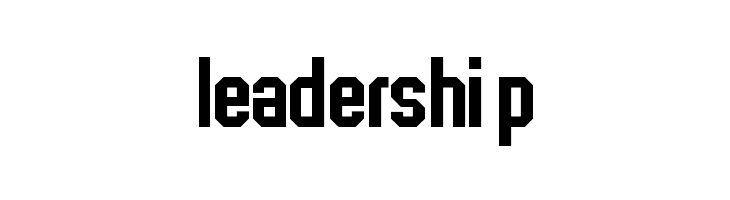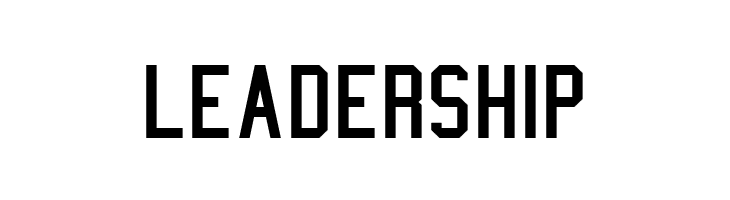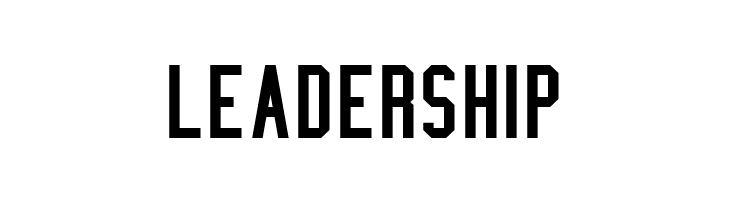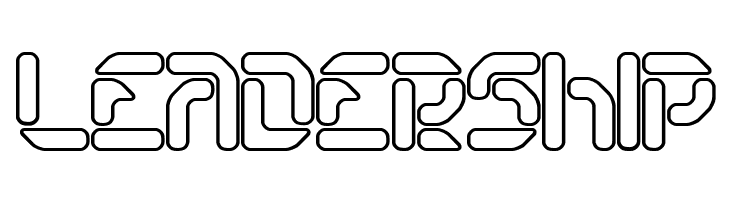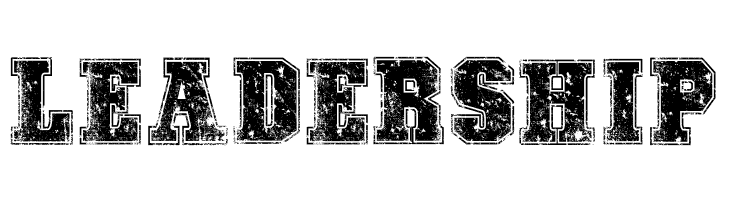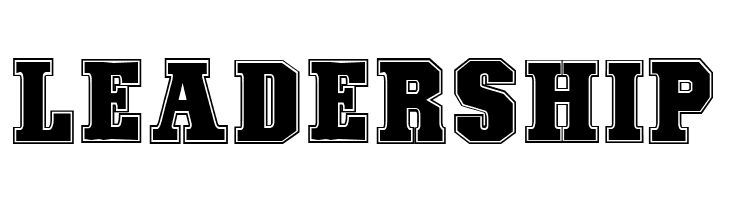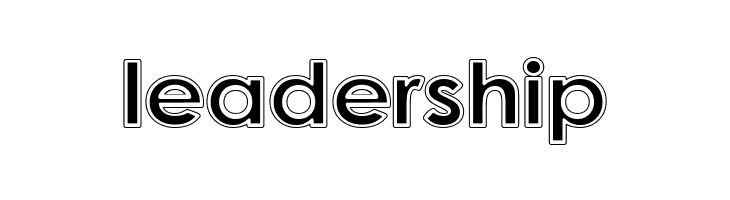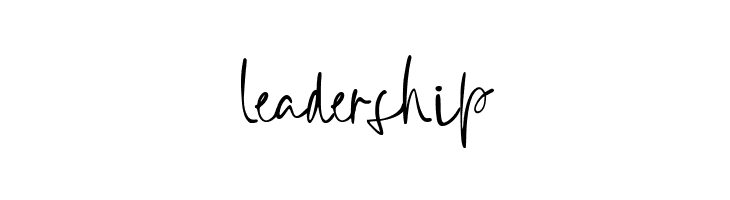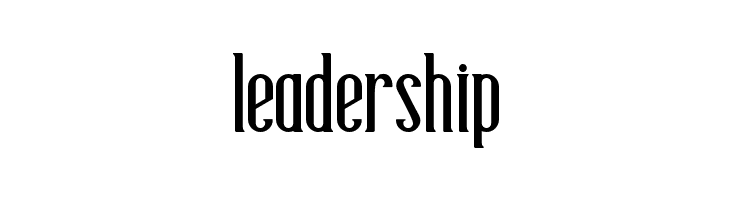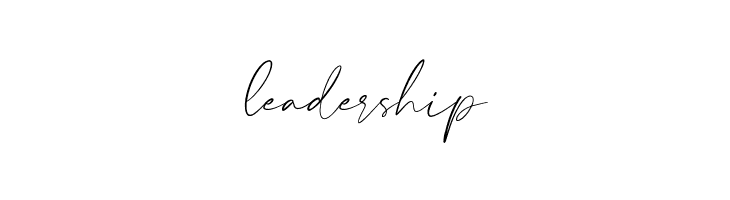
A graceful and elegant script font with flowing, cursive letterforms.
A bold, geometric font with a futuristic, modular design.
A bold, geometric font with a blocky, uniform design.
A fluid and elegant handwritten script font with a dynamic cursive style.
A modern, geometric font with clean lines and a structured appearance.
A collection of bold, graphic dingbat icons depicting urban and industrial elements.
A modern, elongated font with a bold and sophisticated style.
A modern, elegant script font with flowing, cursive characters.
A fluid and elegant script font with a handwritten appearance.
An elegant, flowing script font with a natural handwriting style.
A geometric, angular font with a futuristic and interconnected design.
A futuristic, geometric font with bold, outlined characters.
A bold, geometric font with a futuristic and industrial aesthetic.
A casual, elegant handwritten font with fluid, connected letters.
A bold, geometric font with a collegiate, sports-inspired style.
A decorative font featuring a collage of college logos and mascots for each letter.
Bold, condensed font with a collegiate, sports-inspired aesthetic.
A bold, collegiate-style font with a three-dimensional shadow effect.
A bold, distressed font with a vintage collegiate style.
A bold, outlined collegiate-style font with strong, clean lines.
A playful, bold, hand-drawn font with a cartoonish style.
A bold, geometric font with a modern and industrial aesthetic.
A bold, semi-condensed serif font with a strong, authoritative presence.
A bold, geometric font ideal for impactful and modern designs.
A bold, textured slab serif font with a vintage collegiate style.
A bold, distressed collegiate-style font with a vintage, worn effect.
A bold, playful font with a three-dimensional outlined style.
A bold, decorative font with a distressed, collegiate style.
A bold, angular font with a three-dimensional outline, perfect for dynamic and impactful designs.
A playful, hand-drawn font with a scribbled texture and bold, sketch-like letters.